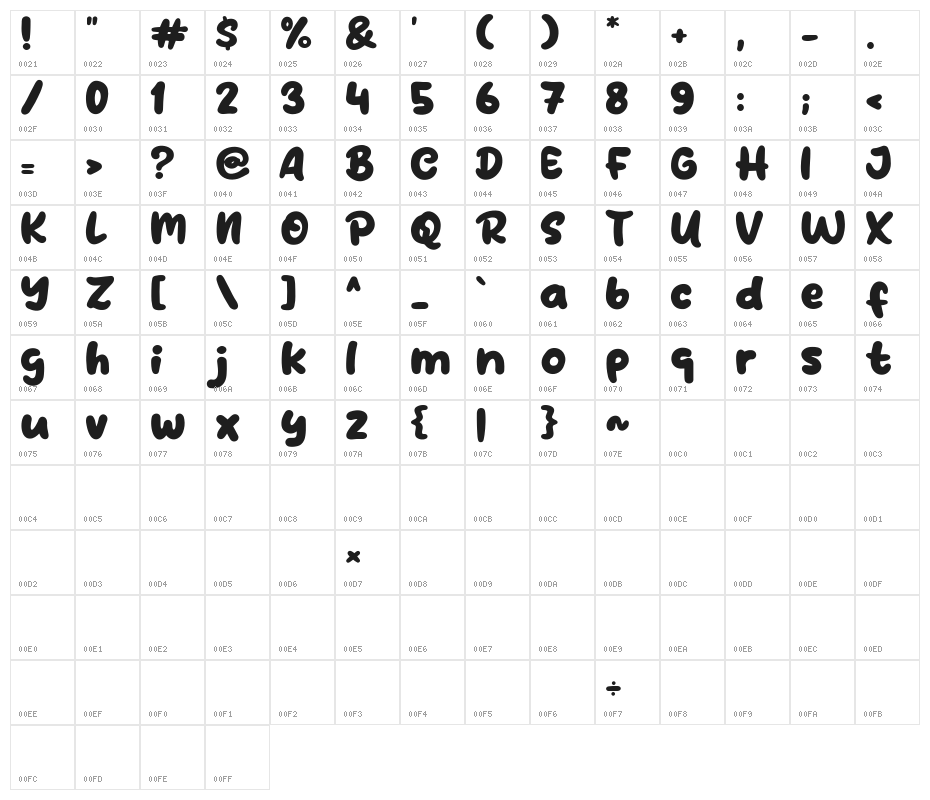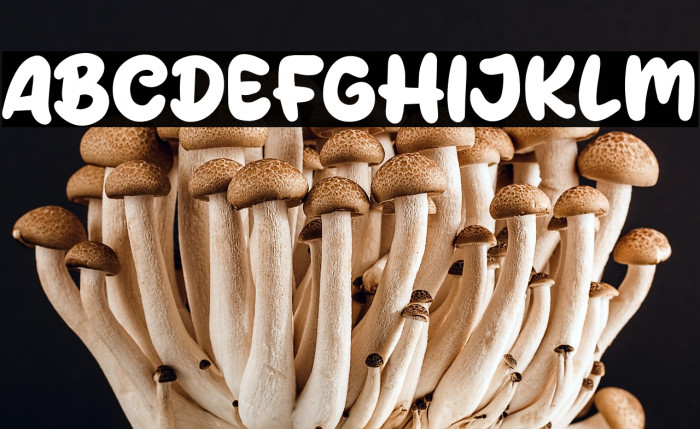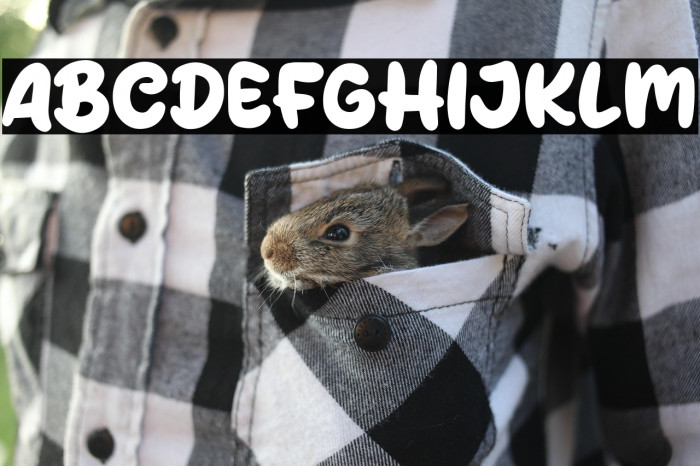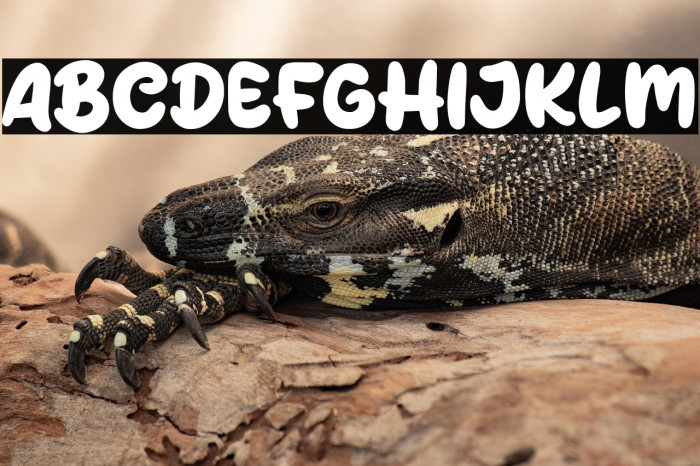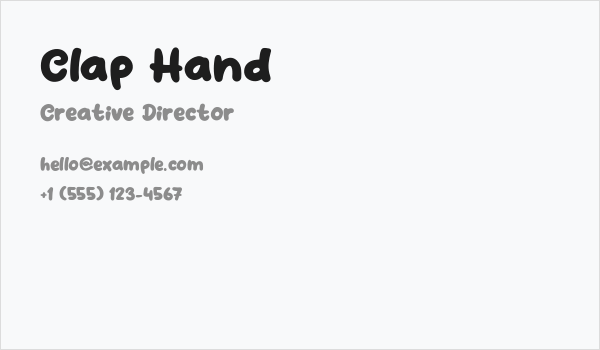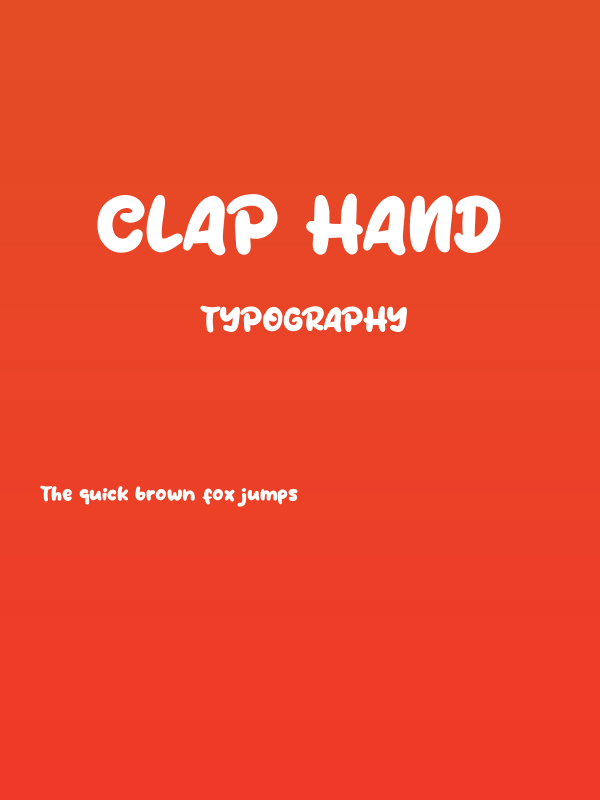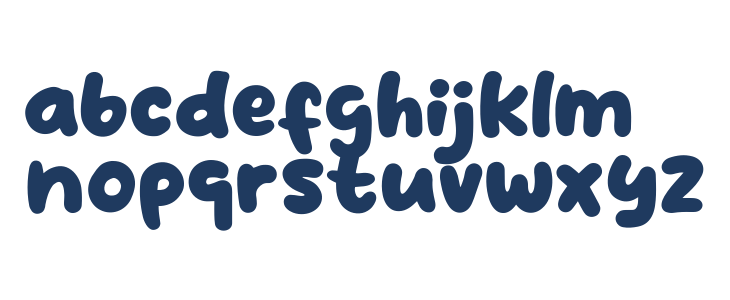
Clap Hand Font
Clap Hand Description
This playful and bold font features rounded, bubbly characters that exude a sense of fun and whimsy. The letters are thick and have a consistent stroke width, giving them a strong presence on the page. The rounded edges and slightly irregular shapes contribute to a casual and friendly appearance, making it ideal for informal and creative projects. The numerals and special characters maintain the same playful style, ensuring consistency across all text elements. This font is perfect for designs that aim to capture attention with a lively and approachable vibe.
| Overall Style | Playful |
| Proposed Projects | Ideal for children's books, playful branding, party invitations, and creative posters. |